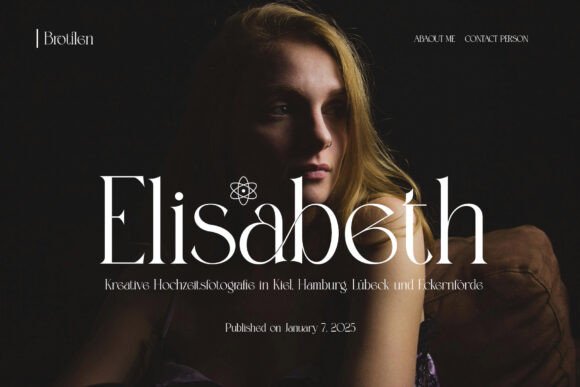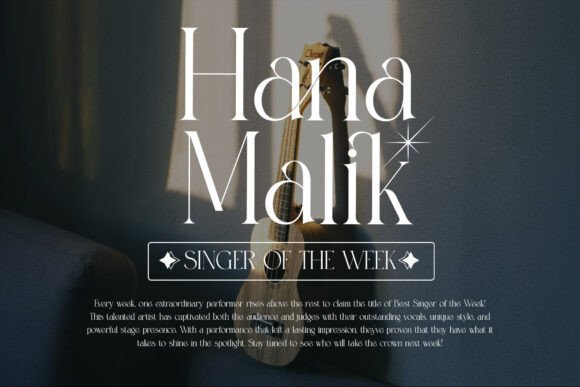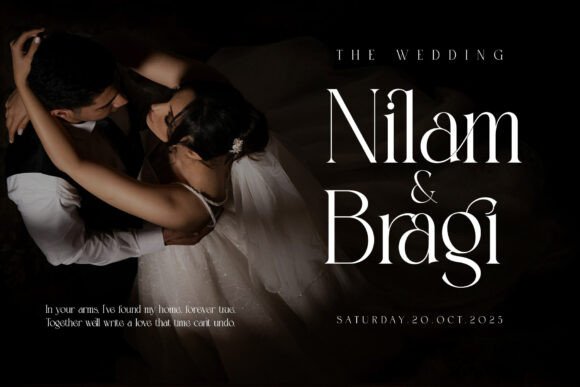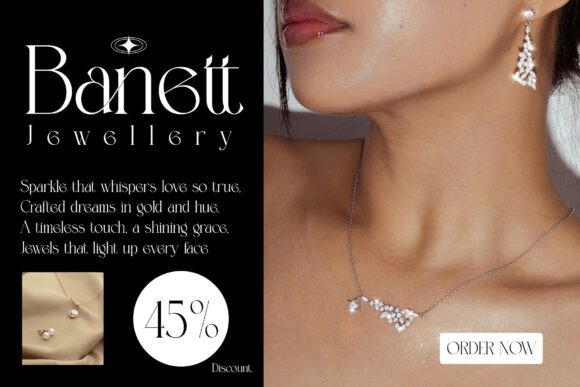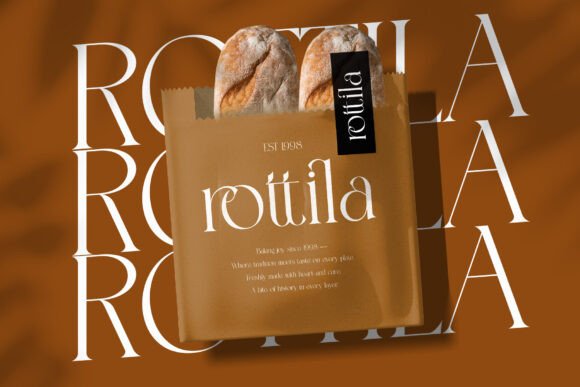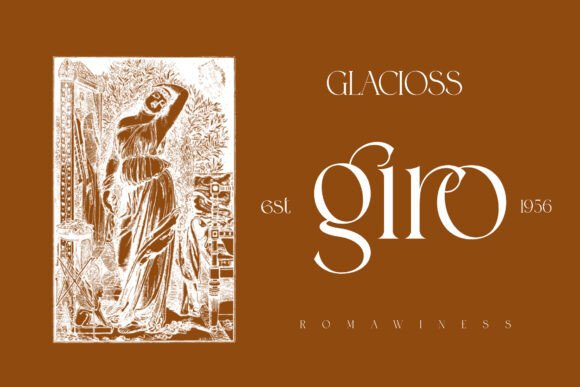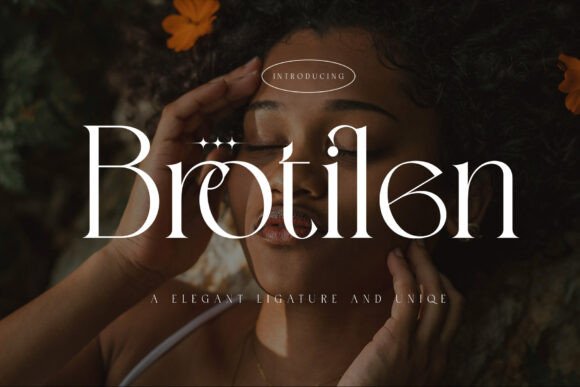
Introducing Brotilen Font: Elevate Your Designs with Elegance and Sophistication
In the world of typography, fonts play a crucial role in conveying the tone and personality of a design. For designers and crafters seeking to add a touch of refinement and natural grace to their work, the Brotilen font is an excellent choice. This elegant ligature serif modern font is designed to evoke the beauty of fresh blooms and timeless elegance, making it perfect for upscale designs in various industries, including florals, fashion, and high-end branding.
The Beauty of Brotilen Font
Brotilen is characterized by its bold yet refined ligatures, which give it a sophisticated and feminine touch. The font’s classic serif style is infused with a modern twist, making it stand out from traditional typefaces. Every letter in Brotilen feels intentional, with a soft and graceful presence that elevates any project it touches. The font’s unique blend of classic and modern elements makes it an excellent choice for designers seeking to create visually stunning designs that exude elegance and refinement.
Key Features of Brotilen Font
- Elegant Ligature Serif Design: Brotilen features a beautiful ligature serif design that adds a touch of sophistication to any project.
- Modern Twist: The font’s classic serif style is infused with a modern twist, making it perfect for designers seeking to create unique and visually stunning designs.
- Refined and Feminine: Brotilen is characterized by its refined and feminine ligatures, making it an excellent choice for designs that require a touch of elegance and sophistication.
- Perfect for Upscale Designs: The font is perfect for upscale designs in various industries, including florals, fashion, and high-end branding.
Use Cases for Brotilen Font
Brotilen is a versatile font that can be used in various design projects, including:
- Floral Designs: The font’s elegant and refined ligatures make it perfect for floral designs, such as logos, packaging, and marketing materials.
- Fashion Designs: Brotilen is an excellent choice for fashion designs, including branding, advertising, and editorial content.
- High-End Branding: The font’s sophisticated and elegant design makes it perfect for high-end branding, including logos, business cards, and letterheads.
Why Choose Brotilen Font?
There are several reasons why designers and crafters should consider choosing Brotilen font for their design projects:
- Unique and Visually Stunning: Brotilen is a unique and visually stunning font that can help designers create designs that stand out from the crowd.
- Elegant and Refined: The font’s elegant and refined ligatures make it perfect for designs that require a touch of sophistication and elegance.
- Versatile: Brotilen is a versatile font that can be used in various design projects, from floral designs to high-end branding.
In conclusion, Brotilen font is an excellent choice for designers and crafters seeking to add a touch of refinement and natural grace to their work. With its elegant ligature serif design, modern twist, and refined ligatures, Brotilen is perfect for upscale designs in various industries. Whether you’re creating floral designs, fashion designs, or high-end branding, Brotilen is a versatile font that can help you create visually stunning designs that exude elegance and sophistication.